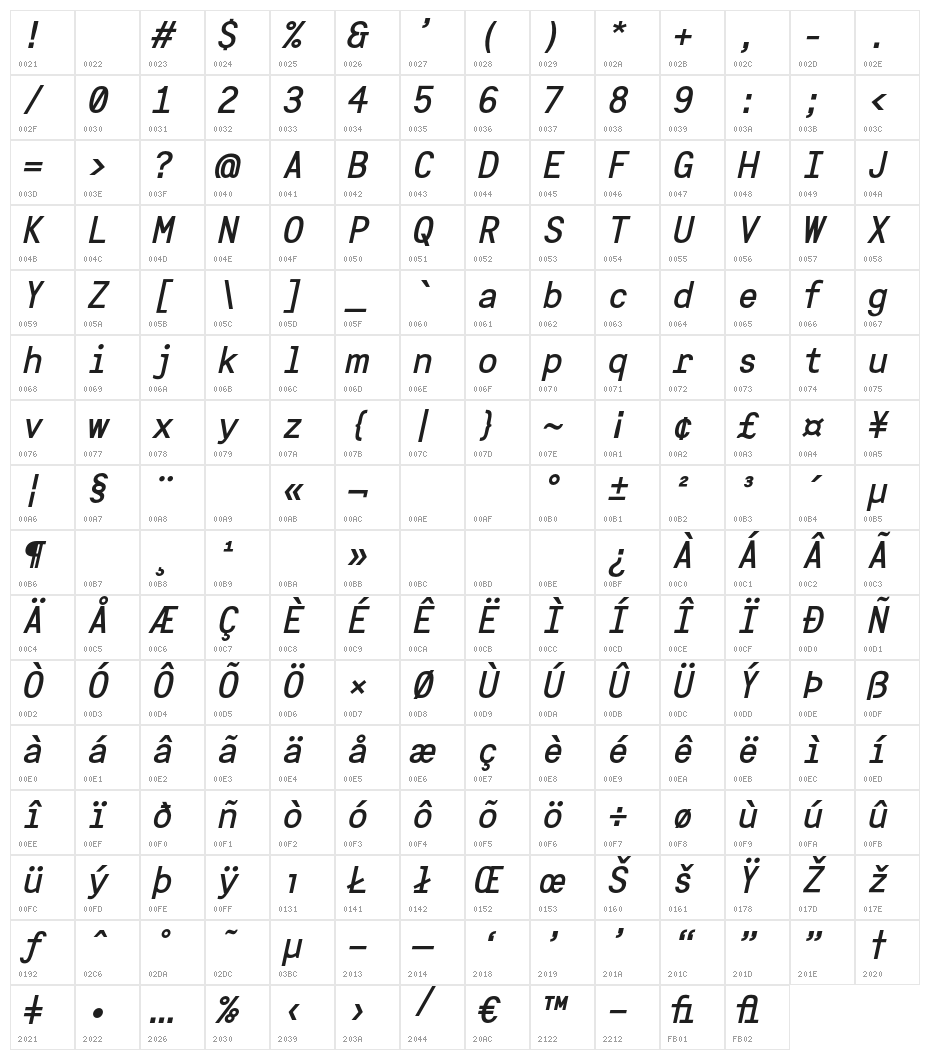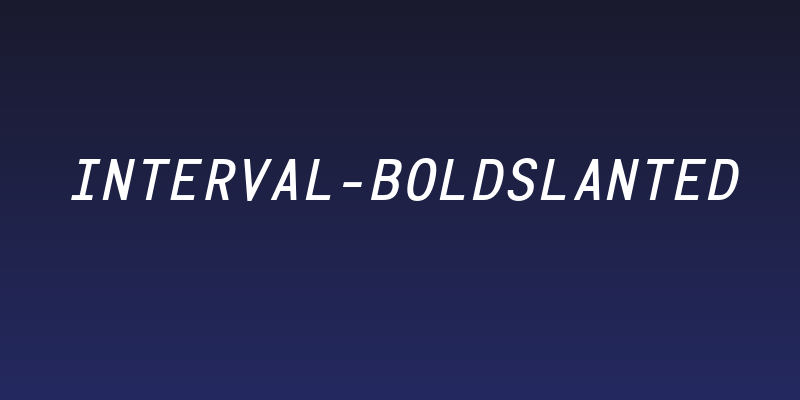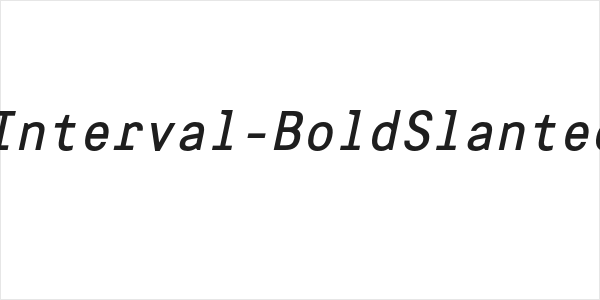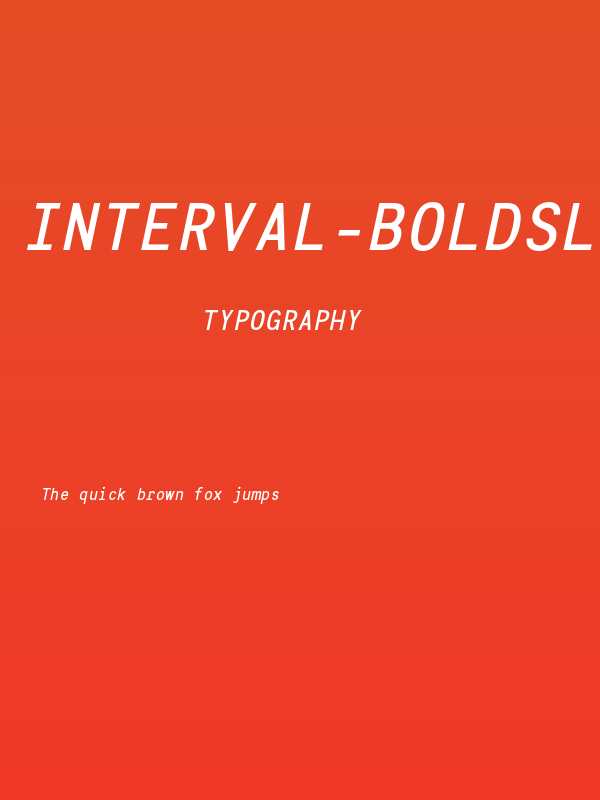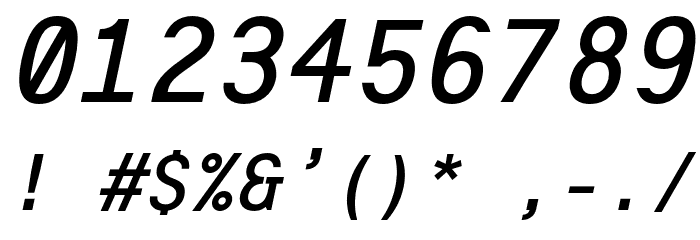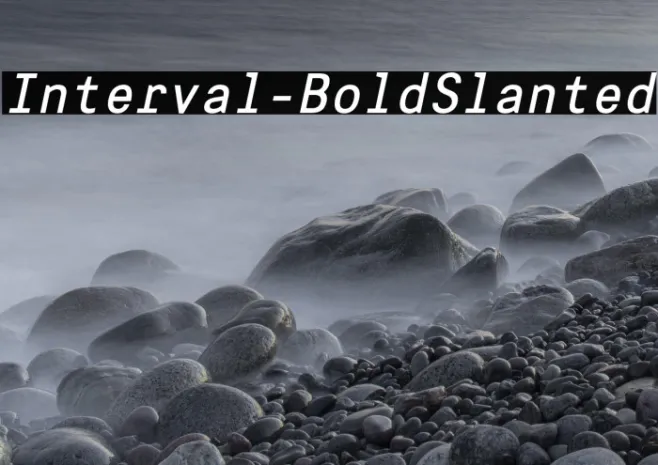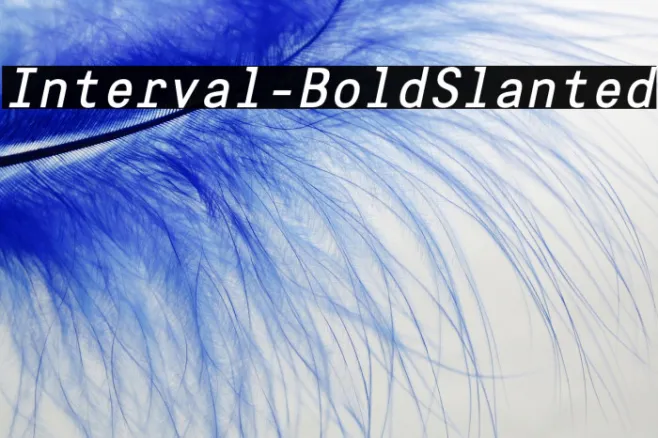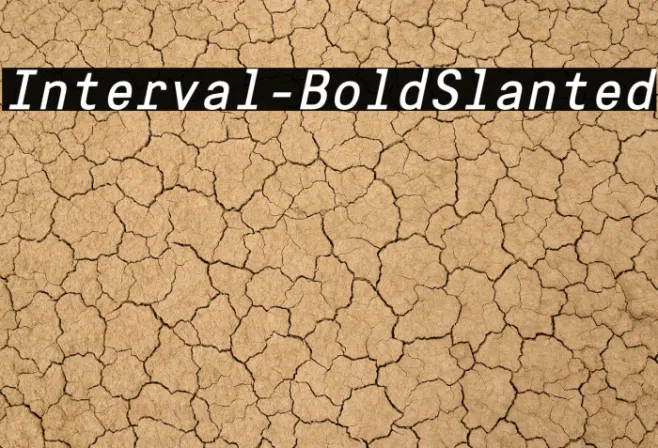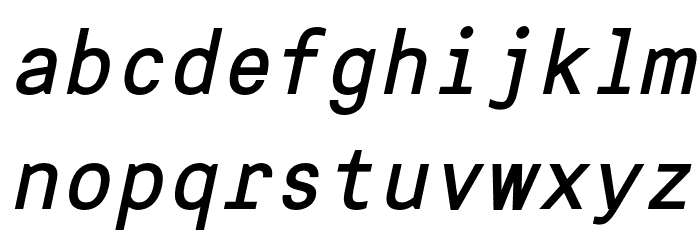
Interval-BoldSlanted Font
Interval-BoldSlanted Description
This font features a bold and slanted design, giving it a dynamic and modern appearance. The characters are well-defined with a consistent stroke width, providing a clean and professional look. The slant adds a sense of motion and urgency, making it suitable for attention-grabbing headlines. The uppercase and lowercase letters maintain a uniform style, ensuring readability and coherence. The numerals and special characters are clearly distinguishable, enhancing the font's versatility across various applications.
| Use Case | Headlines, Logos, Advertising |
| Proposed Projects | Ideal for branding, advertising, and editorial design where a modern and bold statement is needed. |